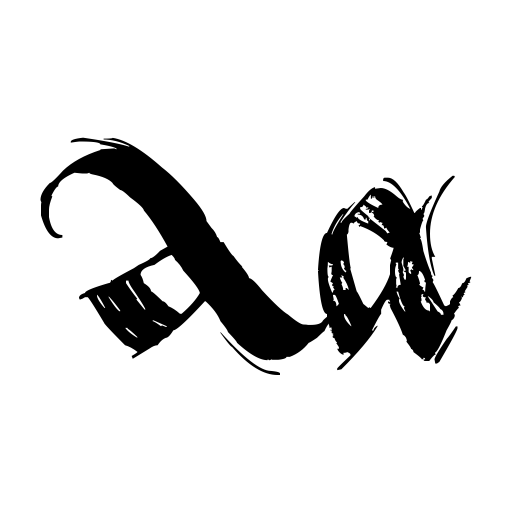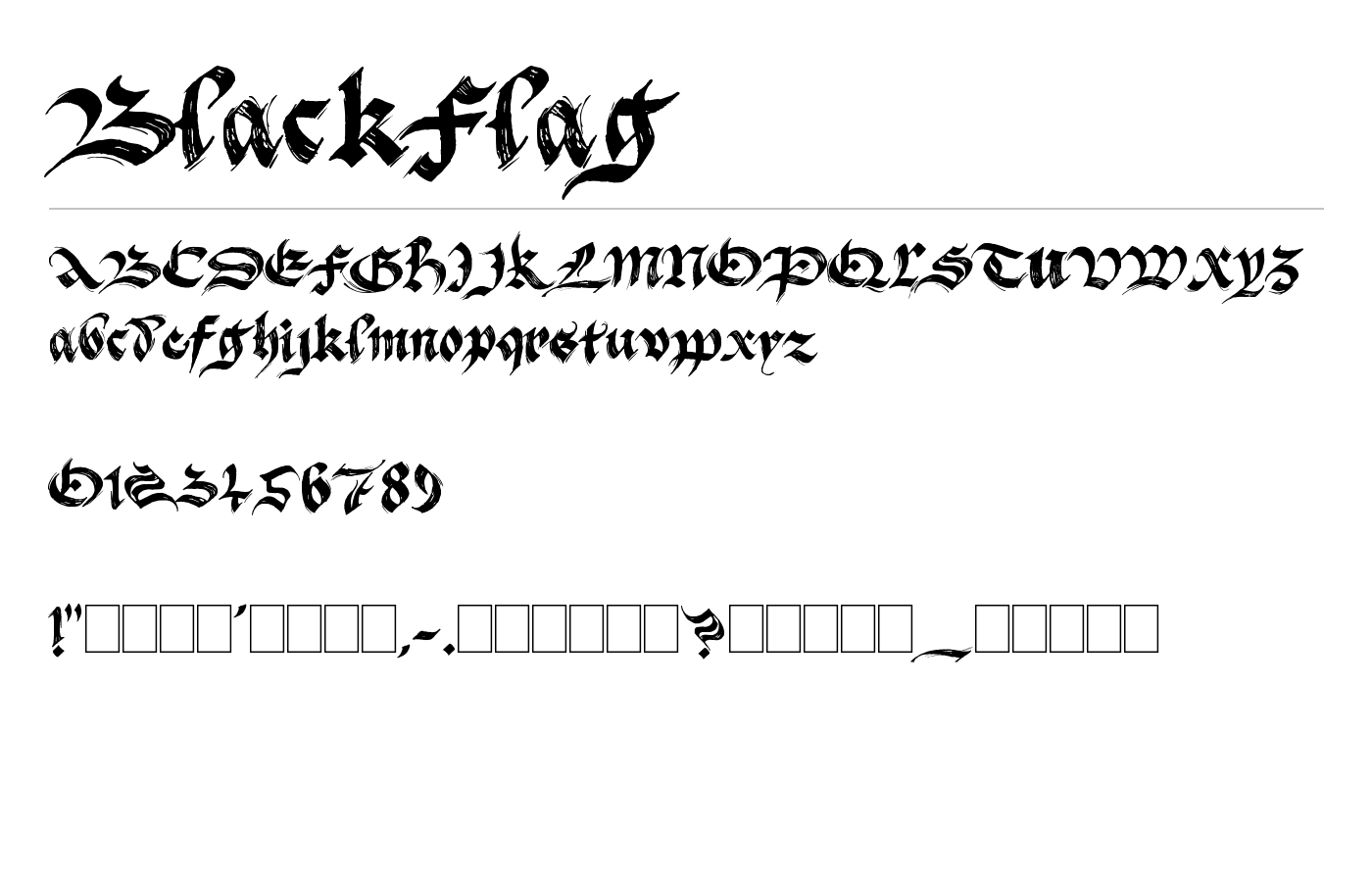
BlackFlag is a bold and dramatic blackletter-style font with sharp, angular strokes that evoke a Gothic, medieval feel. Its high contrast and intricate letterforms give it a rebellious and edgy character, making it ideal for designs that need a strong, historic, or alternative vibe. This font works best in logos, posters, and headlines where a dark, impactful statement is desired.
BlackFlag Font
About BlackFlag Font